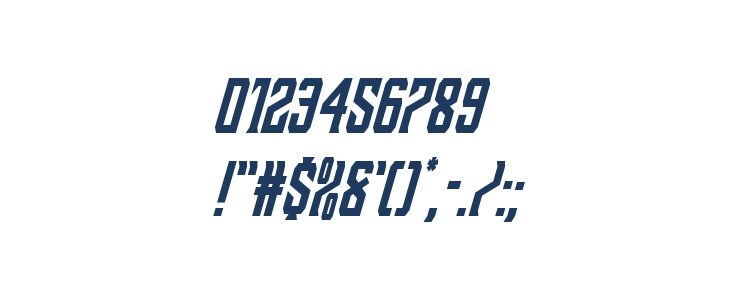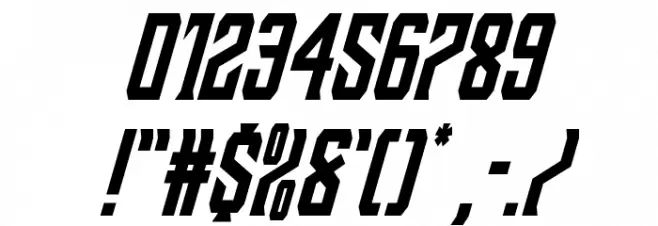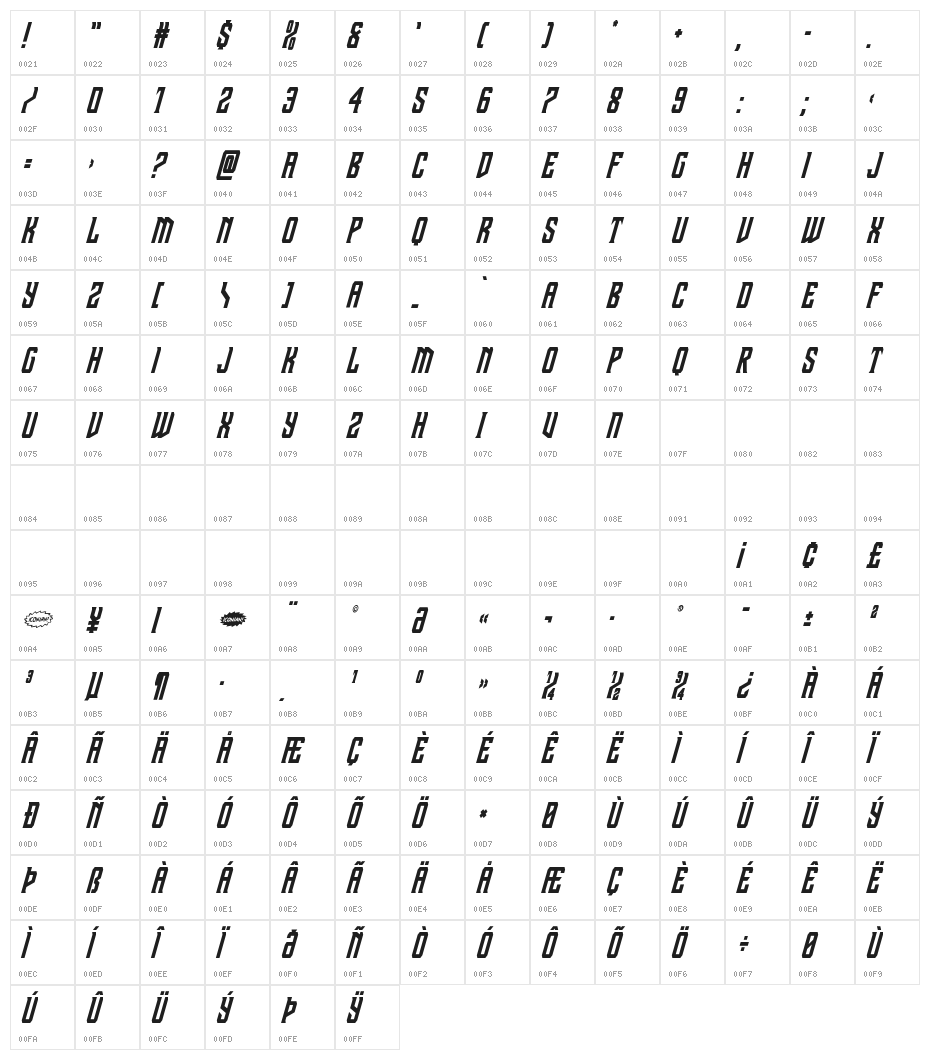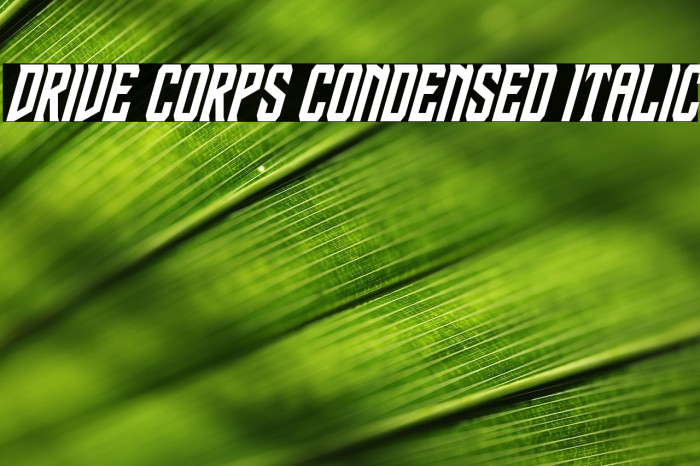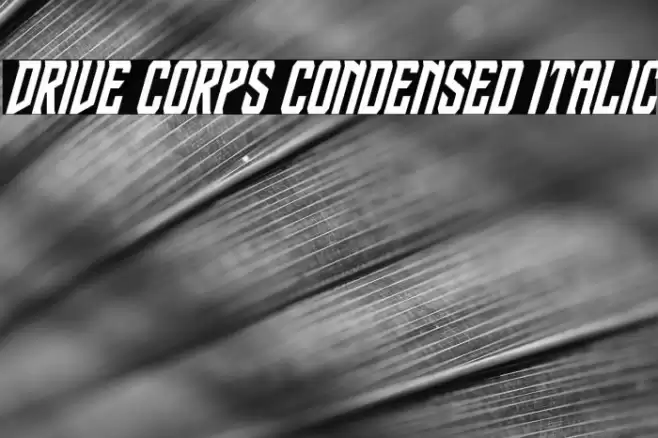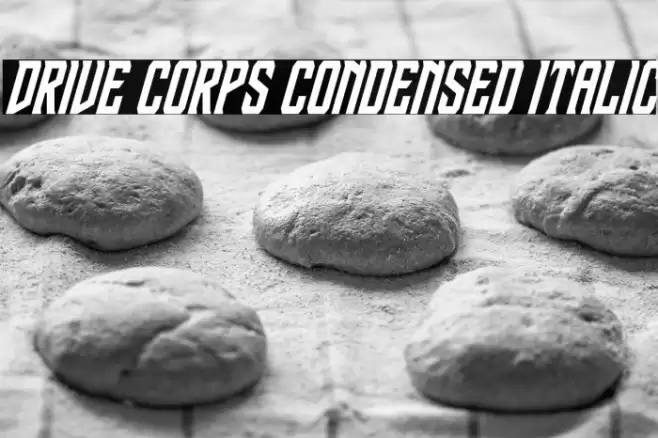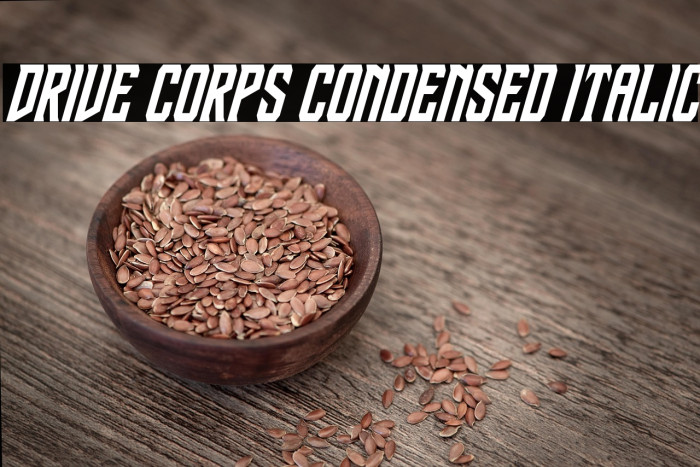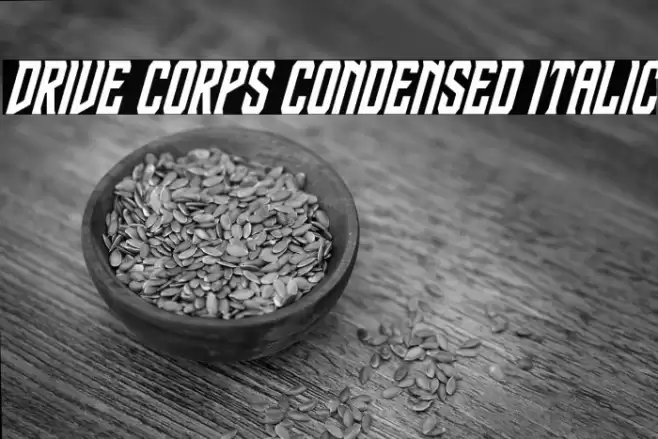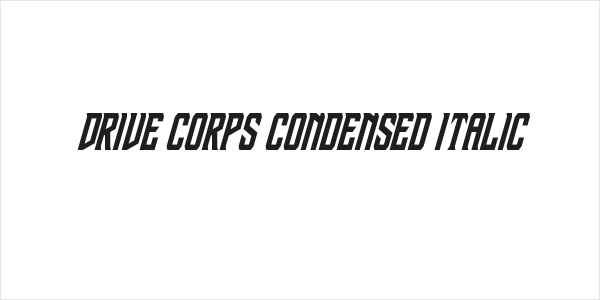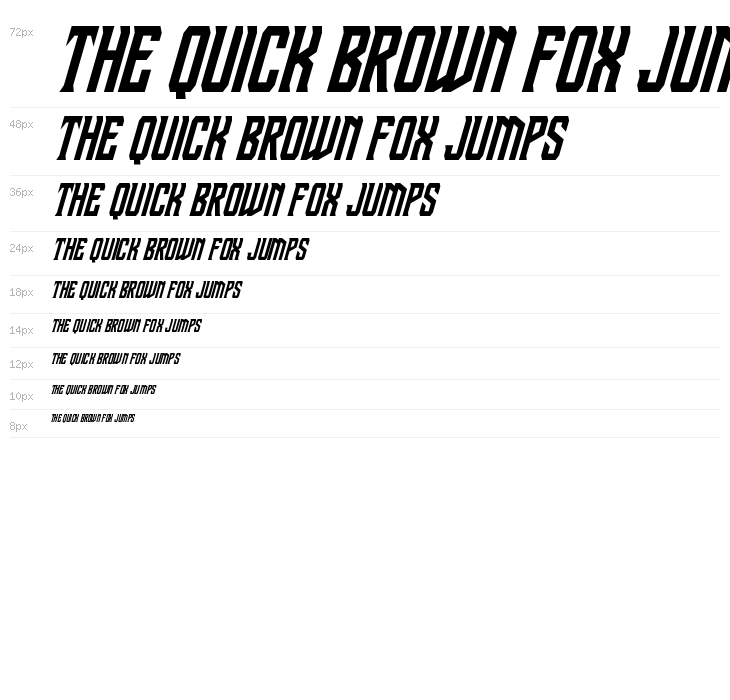
Drive Corps Condensed Italic Font
Drive Corps Condensed Italic Description
This font features a bold, italicized style with a condensed width, giving it a dynamic and energetic appearance. The characters are sharply angled, creating a sense of motion and speed. The uppercase letters are particularly striking, with a futuristic and aggressive design that commands attention. The numbers and special characters maintain this bold aesthetic, ensuring consistency across all glyphs. The overall look is modern and impactful, making it suitable for projects that require a strong visual presence.
| Proposed Projects | Ideal for sports branding, automotive advertisements, video game titles, and dynamic posters. |